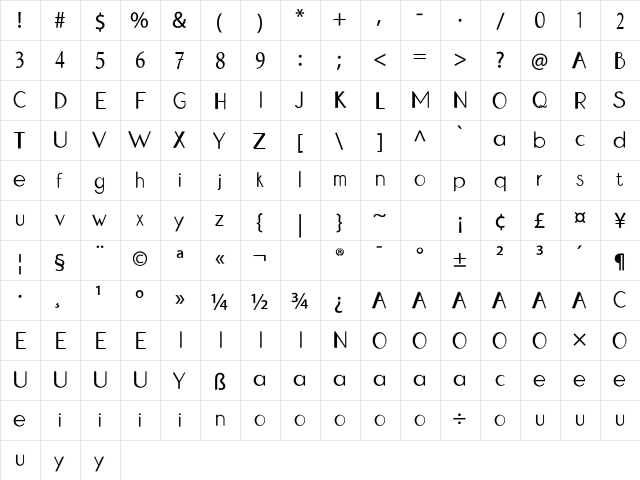
Prickly Cactus Regular
| Foundry | F. Aristaputra |
| Designer | F. Aristaputra |
Design Context for Prickly Cactus Typeface
Prickly Cactus is a composed and adaptable typeface that performs quietly and consistently across a wide range of design contexts.